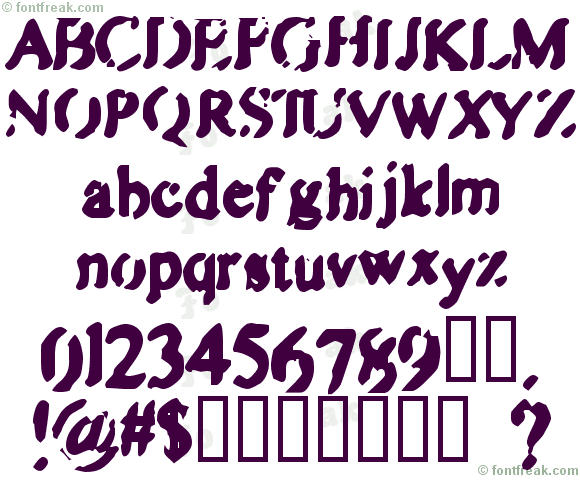
Zipple Bold
About Zipple
Zipple, created by Omega Font Labs, is a bold display font that captivates with its unique visual flair. As a freeware font, it offers a striking choice for designers looking to add personality to their projects. The Zipple font features thick strokes that create a strong presence, balanced by a playful design that incorporates lively curves and an informal aesthetic. The contrast in stroke weight enhances its visual appeal, making it eye-catching while maintaining readability. The spacing is well-considered, ensuring that each letter interacts harmoniously with its neighbors, which is essential for both legibility and style.
This font excels in a variety of use cases, making it versatile for numerous creative projects. It is particularly well-suited for wedding invitations, where its charming design can convey a sense of joy and celebration. Additionally, Zipple shines in movie posters, providing a bold statement that draws attention and piques interest. Restaurant menus can also benefit from its distinctive character, adding a touch of flair that reflects the establishment's vibe. Content creators will find that Zipple adds a unique twist to social media graphics, making posts stand out in a crowded digital landscape.
The target audience for the Zipple font includes graphic designers, small business owners, and content creators who seek to infuse their work with a vibrant and energetic feel. Its boldness appeals to those looking to make a memorable impression while maintaining a level of accessibility.
What truly sets the Zipple font apart is its ability to blend fun and functionality. It brings a sense of whimsy to any project, making it a delightful choice for those seeking to elevate their designs. Don’t miss out on the Zipple font free download to enhance your creative toolkit.